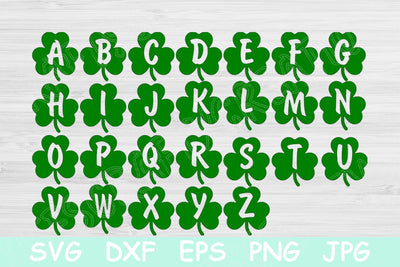
St Patricks Day Svg Fonts Shamrock Svg. St Patricks Svg Cut Files for Cricut and Silhouette. 4 Leaf Clover Svg Alphabet Letters Design.
This st patricks day svg font that is in the shape of shamrocks are the perfect st patricks svg digital font files to make your own personalized gifts. It would look great on a pillow or bag.
In pack are included 26 uppercase shamrock letters: